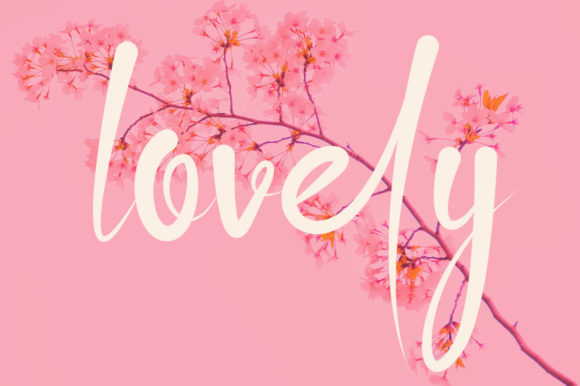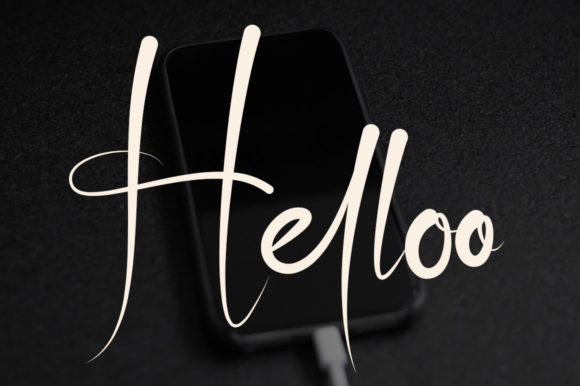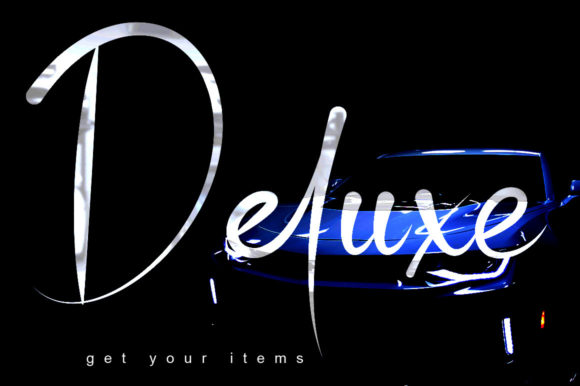
Introduction to Ollivitess Font
As a designer, there’s nothing quite like the thrill of discovering a new font that perfectly captures the essence of your creative vision. For me, that moment came when I stumbled upon the enchanting Ollivitess Font. Its delicate, flowing script seemed to dance across the screen, transporting me to a world of elegance and sophistication.
As I delved deeper into the world of Ollivitess Font, I realized just how valuable this design resource could be. With its high-quality, transparent background, this font is perfect for designers looking to add a touch of whimsy to their creative projects. Whether you’re working on a wedding invitation, a branding campaign, or a digital product, Ollivitess Font is sure to impress.
Key Features of Ollivitess Font
- Unique characteristics include its elegant and sophisticated style, making it perfect for use in branding, logos, and typography-based designs.
Honest Review: Ollivitess Font
I recently stumbled upon the Ollivitess Font, and I must say, it’s been a game-changer for my creative project. With a free download option, I was able to get started right away, and the results have been impressive.
The font’s high-quality design makes it perfect for any project that requires a professional touch. I’ve used it for headings, titles, and even as a design resource for my logo. The transparent background feature has been particularly useful, allowing me to easily overlay the font on any image or background.
- High-quality design that looks great on any device
- Perfect for creative projects, logos, and design resources
However, I do have a few limitations to note: ⚠️
- Not suitable for small text due to its bold design
- May require additional formatting for certain applications
Overall, I’m thoroughly impressed with the Ollivitess Font. It’s a valuable addition to any designer’s toolkit, and I highly recommend it for any creative project that requires a high-quality font with a transparent background.
Tips for Getting the Most Out of Ollivitess Font
When using Ollivitess Font, keep in mind that it’s a high-quality design resource that works well for creative projects. You can use it to create stunning titles, headings, and body text. Additionally, the font is available for free download, making it an excellent choice for designers on a budget.
Ollivitess Font is suitable for a wide range of creative projects, including logos, brochures, posters, and business cards. It’s also ideal for designing websites, social media graphics, and presentations. The font’s transparent background makes it easy to use in combination with other design elements.